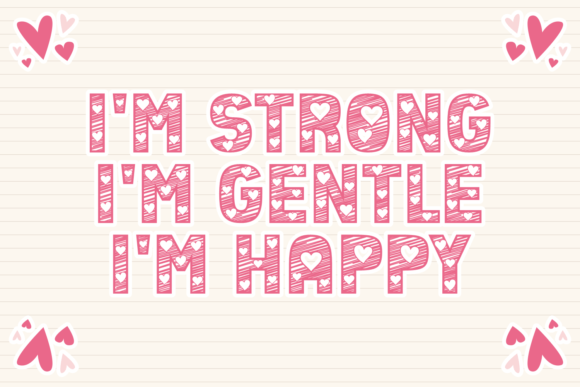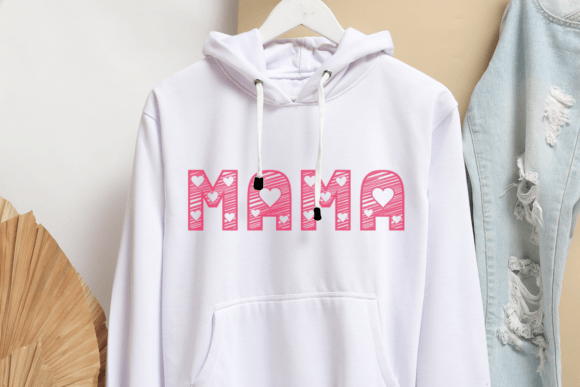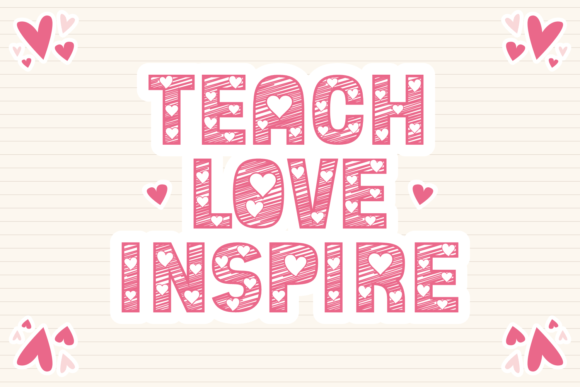
Introduction to Love Alice Font
Do you remember the moment when you stumbled upon the perfect font to convey your message? For many designers, that moment is a treasure trove of inspiration. For those who are about to experience it, we’re excited to introduce the “Love Alice Font”. This charming decorative love font is infused with a whimsical sketchy style pattern that will make your creative project stand out.
As a valuable design resource, the Love Alice Font is perfect for designers who want to add a touch of warmth and affection to their compositions. With its high-quality design and transparent background, this font is ideal for various creative projects, from wedding invitations to branding materials. And the best part? It’s available for a free download, making it an accessible design resource for designers of all levels.
Whether you’re working on a romantic project or simply want to add a playful touch to your design, the Love Alice Font is sure to bring a sense of magic and personality to your work.
Key Features of Love Alice Font
- High-quality, elegant design perfect for creative projects and design resources.
- Unique, hand-drawn style with a transparent background, ideal for use on various backgrounds.
- Includes a full set of characters, punctuation, and symbols for comprehensive use in design projects.
Honest Review: Love Alice Font
I recently had the chance to work with the Love Alice Font, and I must say, it’s been a delightful experience. This font is a great addition to any designer’s toolkit, offering a high quality and elegant design that’s perfect for creative projects.
Here are some of the things that I think work well:
- ✨ The font’s intricate details and curves give it a unique and whimsical feel that’s perfect for projects that require a touch of personality.
- ✨ The transparent background option allows for seamless integration with other design elements.
- ⚠️ The font may not be suitable for projects that require a more modern or bold aesthetic.
- ⚠️ Some users may find the font’s complexity to be overwhelming or difficult to use.
Overall, I’m really impressed with the Love Alice Font. It’s a great design resource that’s perfect for designers looking to add a touch of elegance and whimsy to their creative projects. With its high quality design and free download option, it’s definitely worth checking out.
Tips for Getting the Most Out of the Love Alice Font
To get the most out of the Love Alice Font, experiment with different font sizes, colors, and combinations to find the perfect look for your design project. You can also use this font in conjunction with other design resources, such as graphics and images, to create a cohesive and visually appealing design.
Common Use Cases for the Love Alice Font
The Love Alice Font is ideal for use in a variety of creative projects, including wedding invitations, birthday cards, and social media graphics. Its high-quality, transparent background makes it perfect for layering and combining with other design elements to create unique and visually appealing designs.